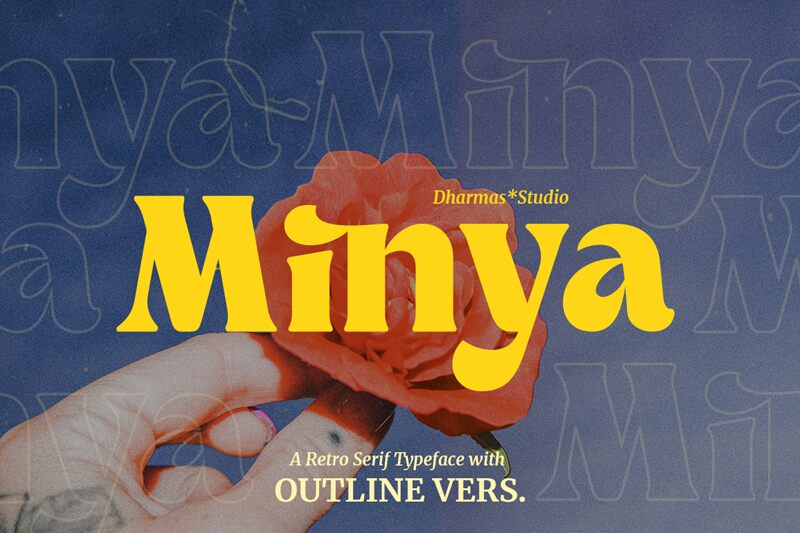
Minya, designed by Dharmas Studio, is a serif font that exudes confidence with its bold strokes and distinctive flair. Its robust serifs anchor each character firmly on the page, lending a sense of solidity and presence. The font's generous proportions create a welcoming rhythm in text, while its elegant curves introduce a subtle playfulness.
The Minya font finds its place in a variety of design contexts where strength and clarity are paramount. It shines in headings and titles, where its impactful nature commands attention. Additionally, this font is well-suited for branding purposes and editorial design, adding character to logos and sophistication to magazine layouts with its blend of contemporary style and timeless appeal.